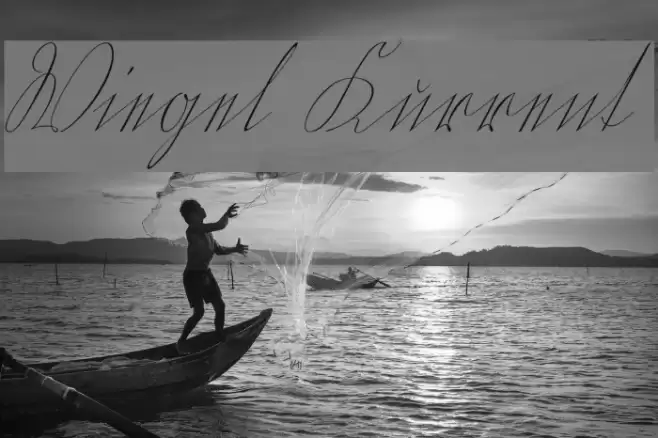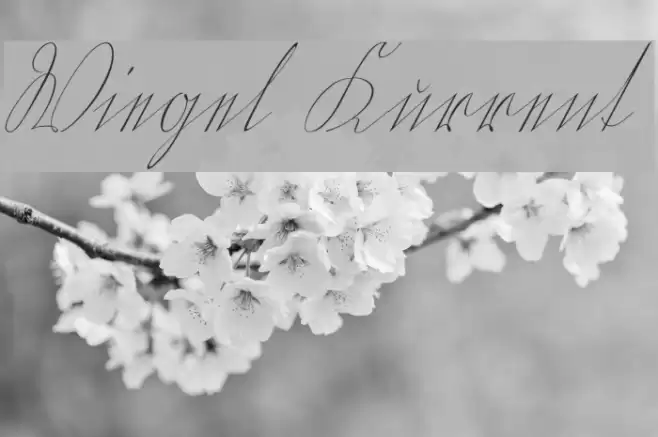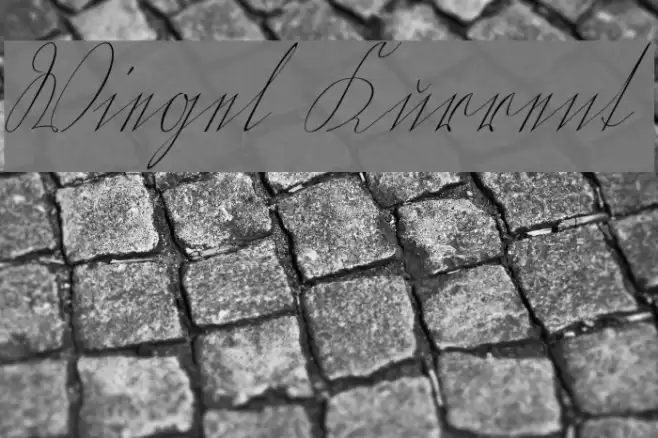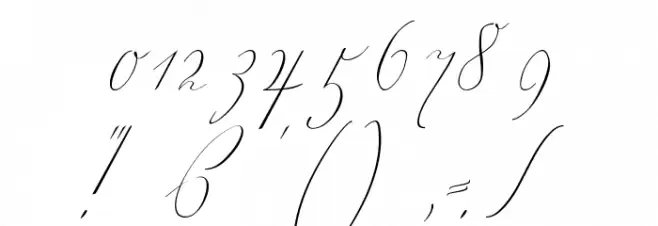
Wiegel Kurrent Font
Wiegel Kurrent Description
This font exhibits a classic and elegant script style, characterized by its flowing, cursive letterforms that mimic traditional handwriting. The strokes are thin and delicate, with a consistent slant that gives it a graceful appearance. Each character is intricately designed, with loops and flourishes that enhance its decorative quality. The uppercase letters are particularly ornate, while the lowercase letters maintain a more subtle elegance. The numerals and special characters are crafted to match the overall aesthetic, ensuring a cohesive look across all elements.
An elegant, cursive script font with flowing, delicate strokes from Handwritten fonts.
- Proposed Projects: Ideal for wedding invitations, formal event programs, elegant branding, and decorative certificates.
- Weight: Light
- Character Spacing: Tight
- Overall Style: Classic
- Use Case: Logos, Invitations, Decorative Text